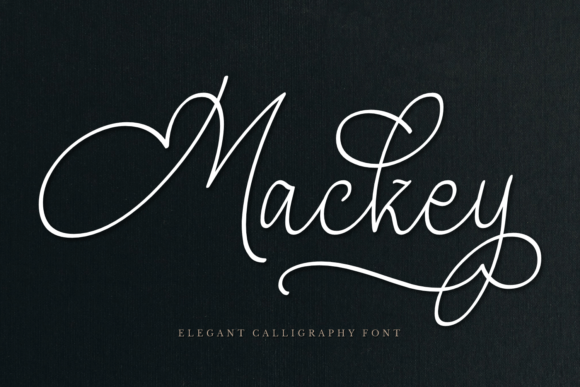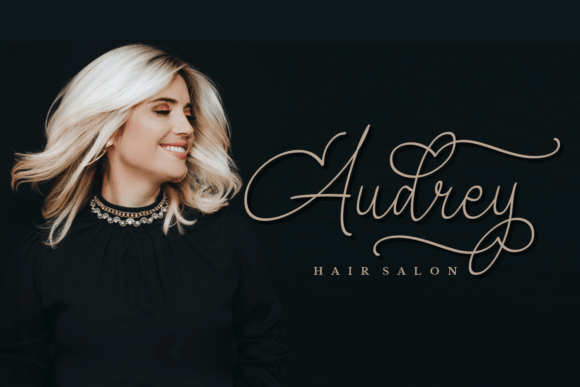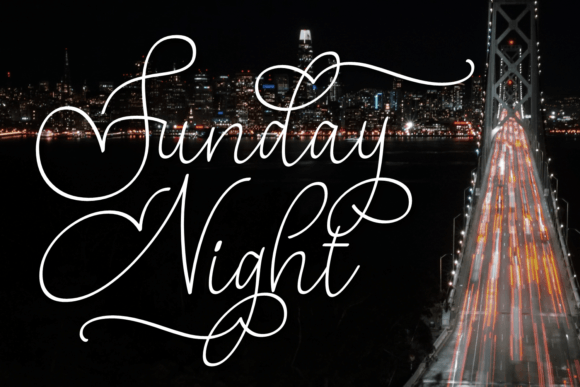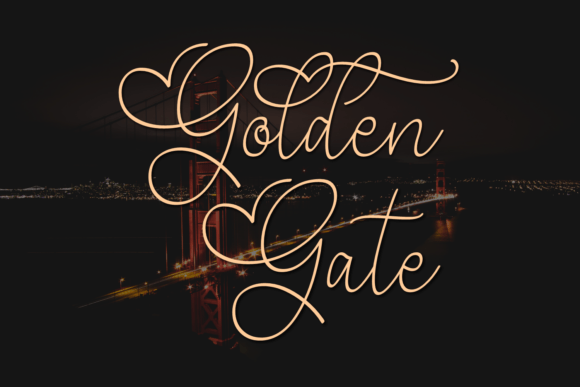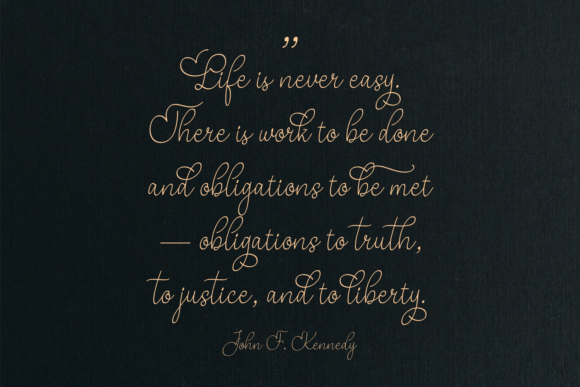
Mackey Font
About Mackey Font
Mackey, a romantic and elegant script font, is crafted to add a touch of sophistication and dreaminess to your designs. With its thin lines and graceful swashes, this font becomes the perfect choice for projects with a focus on fashion, beauty themes, wedding invitations, cards, Valentine’s Day projects, and beyond.
The romantic and elegant nature of Mackey makes it ideal for conveying emotions and creating visually stunning designs. Picture it gracing wedding invitations, where its dreamy swashes and thin lines contribute to a sense of romance and sophistication. In the realm of fashion and beauty, Mackey becomes a signature element, adding a touch of glamour to your branding or promotional materials.
The thin lines of Mackey bring a delicate and refined quality to the script, making it well-suited for various design applications. Its adaptability shines through in projects where elegance and romance take center stage, such as Valentine’s Day cards or any endeavor that requires a blend of style and emotion.
The PUA encoding of Mackey enhances its usability, allowing easy access to all the glyphs and swashes. This feature empowers you to customize and personalize your designs, ensuring that each project reflects your unique style and creative vision.
In summary, Mackey is not just a font; it’s a design asset that adds a romantic and elegant flair to your projects. Whether you’re working on wedding invitations, fashion themes, or special occasion cards, let Mackey be the script font that infuses your designs with dreaminess and sophistication.